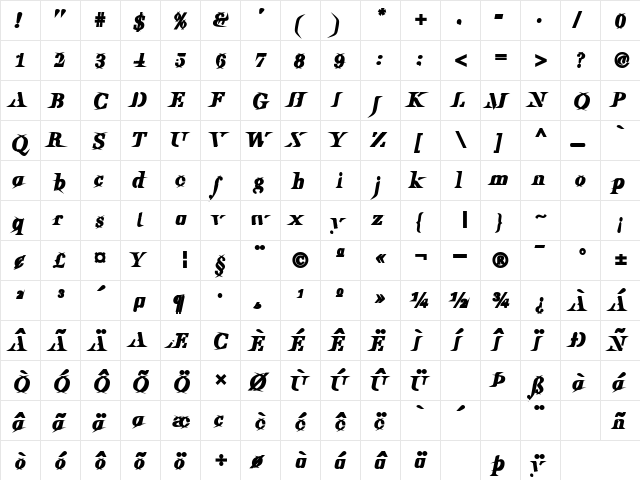
Utile CausticItalic
Design Context for Utile Typeface
Utile is a composed and adaptable typeface that performs quietly and consistently across a wide range of design contexts. The dynamic lean of this cut emphasises speed and emphasis in any layout.
Pro Tip: Use Utile for emphasis, pull quotes, and subheadings where its slanted energy can add rhythm to the layout.